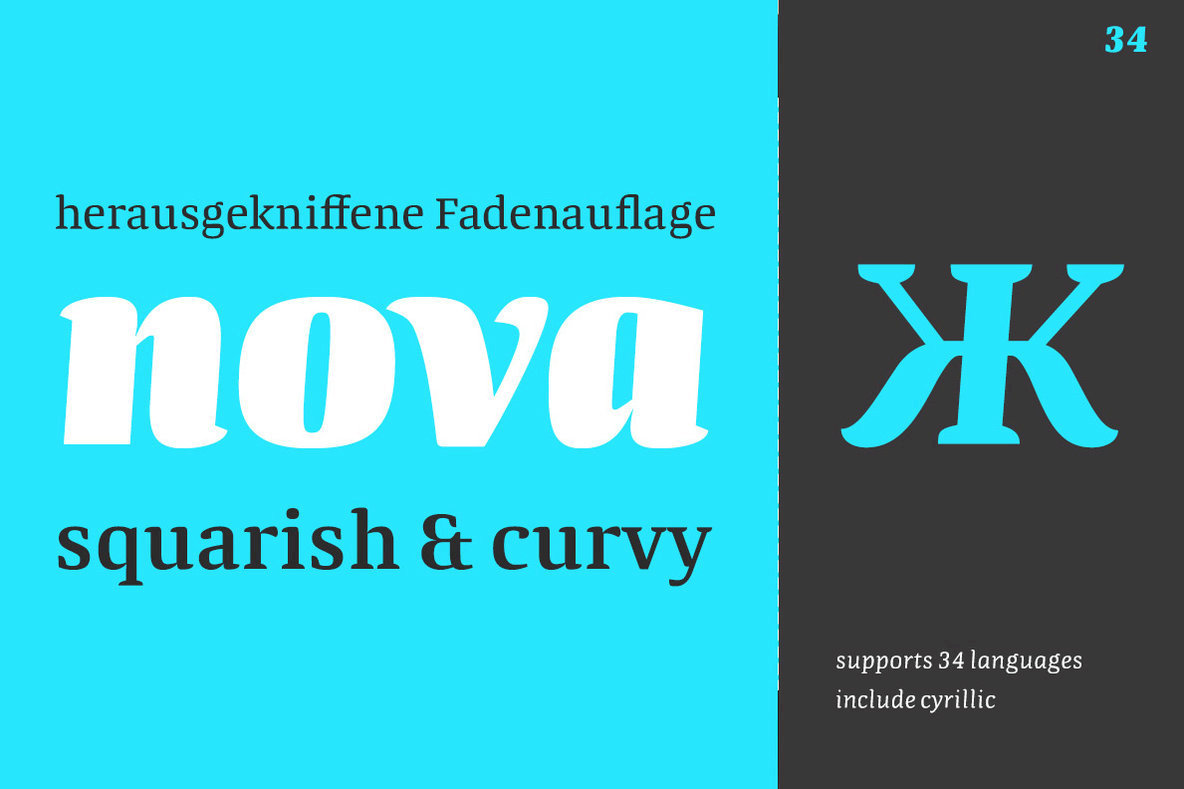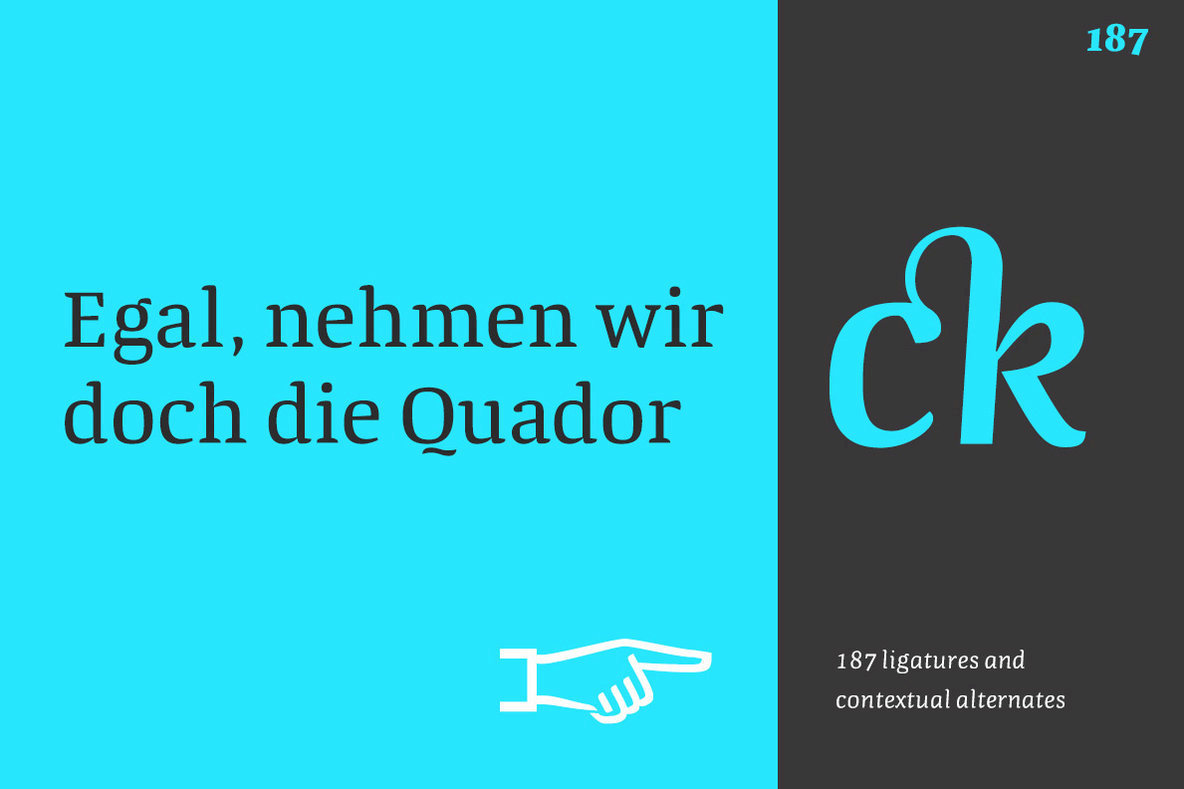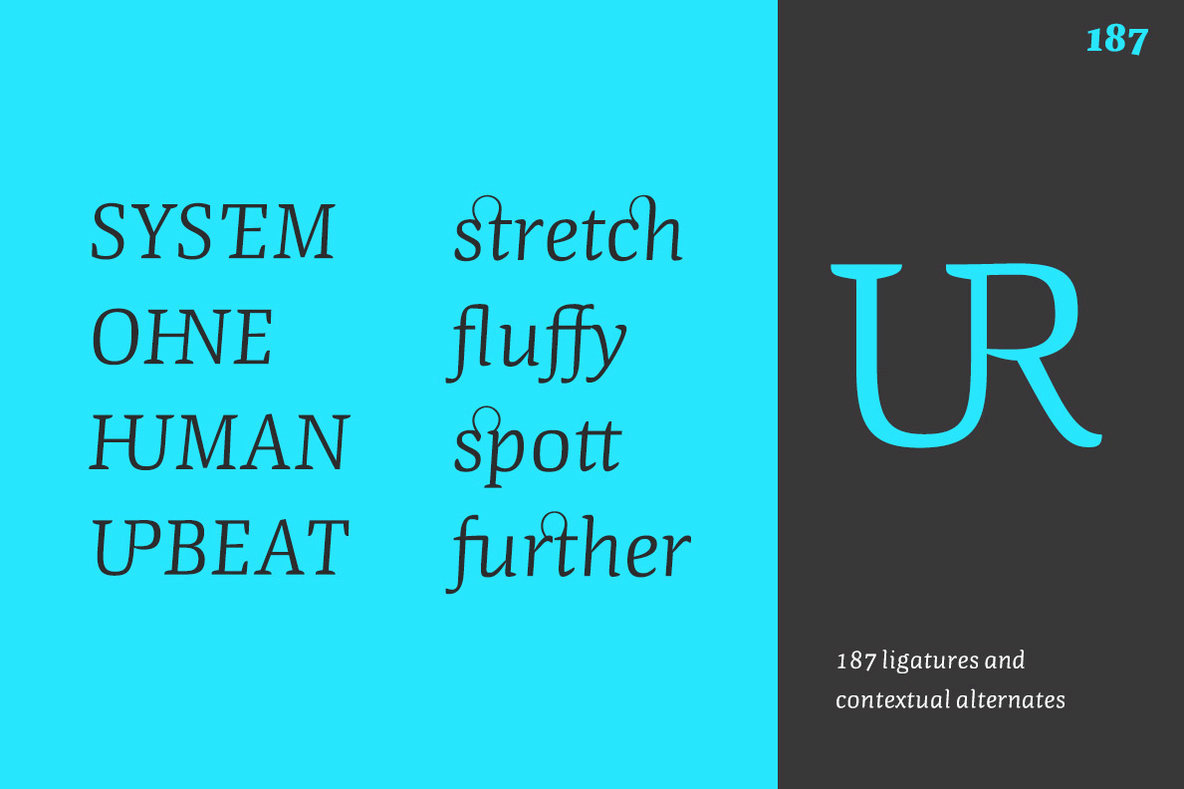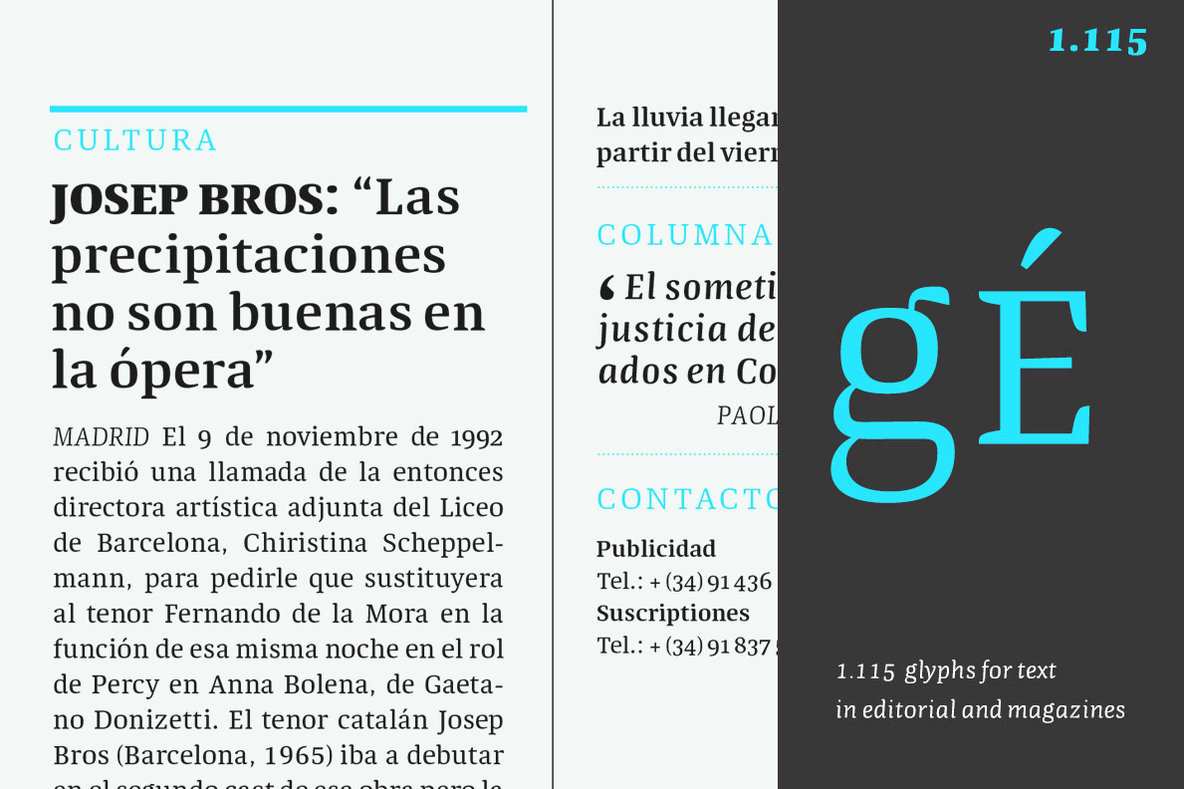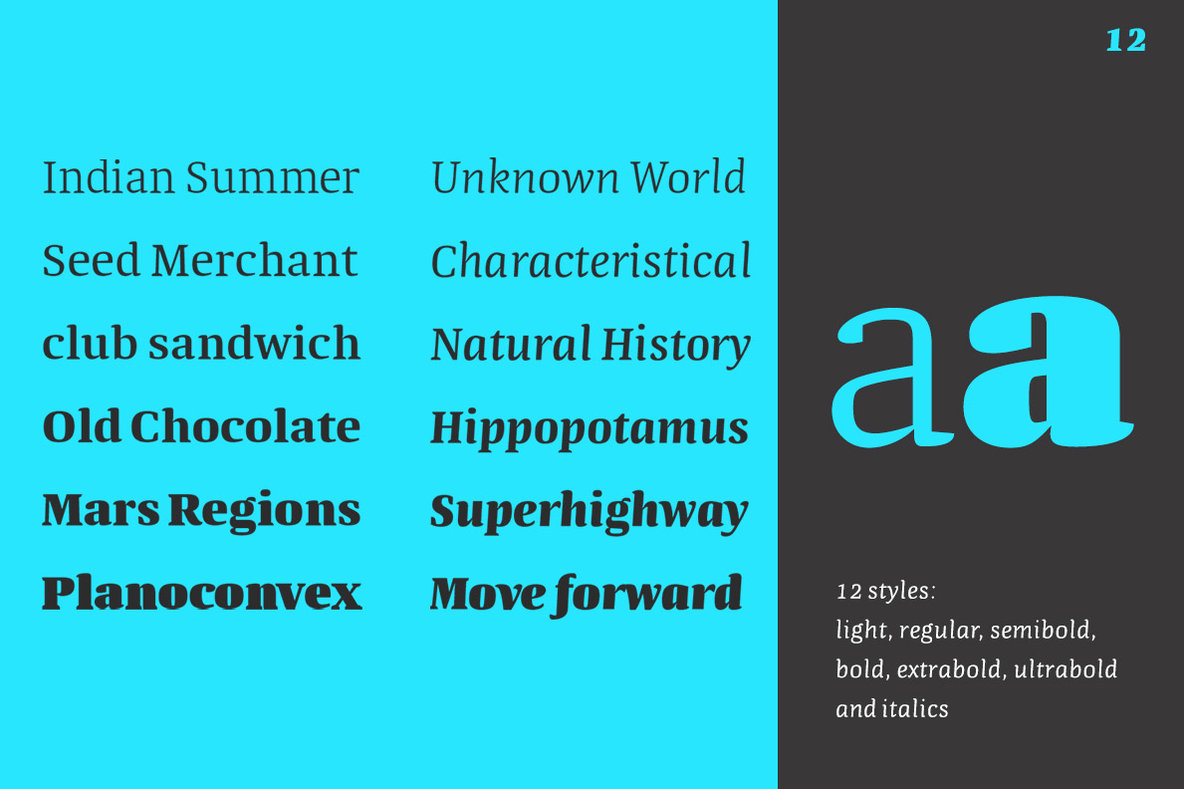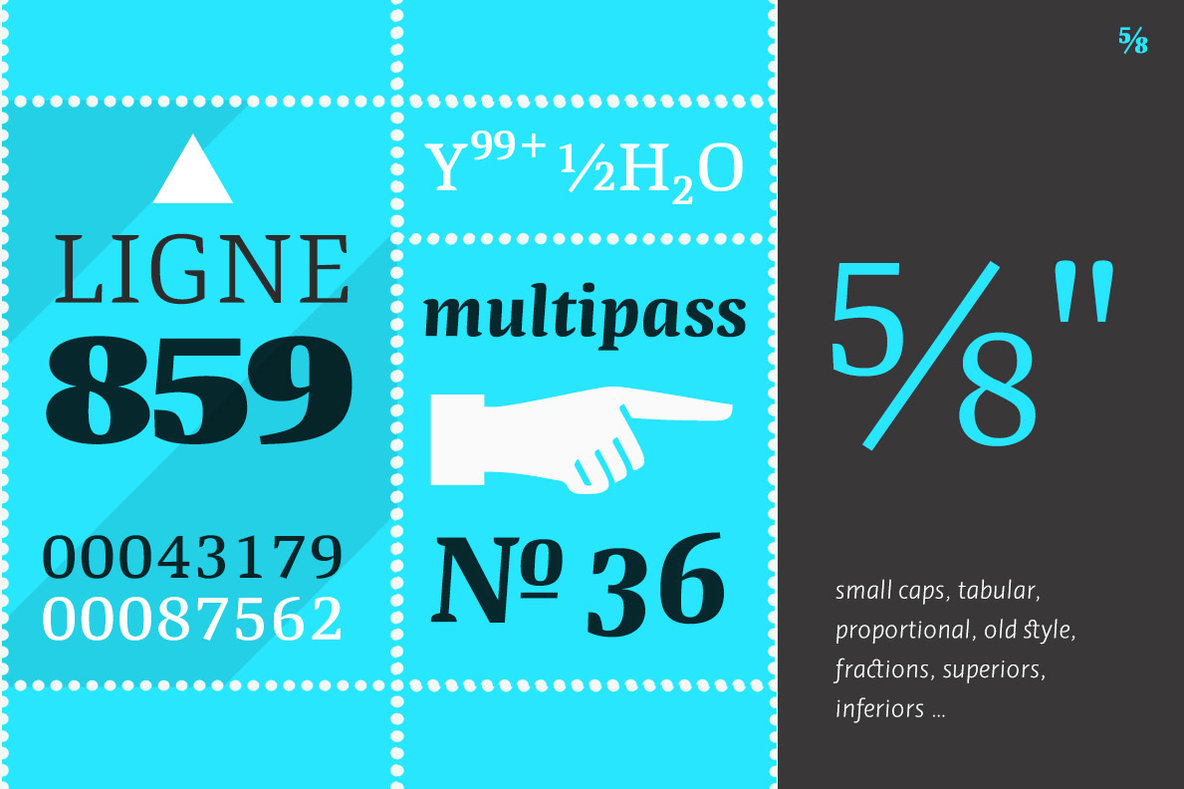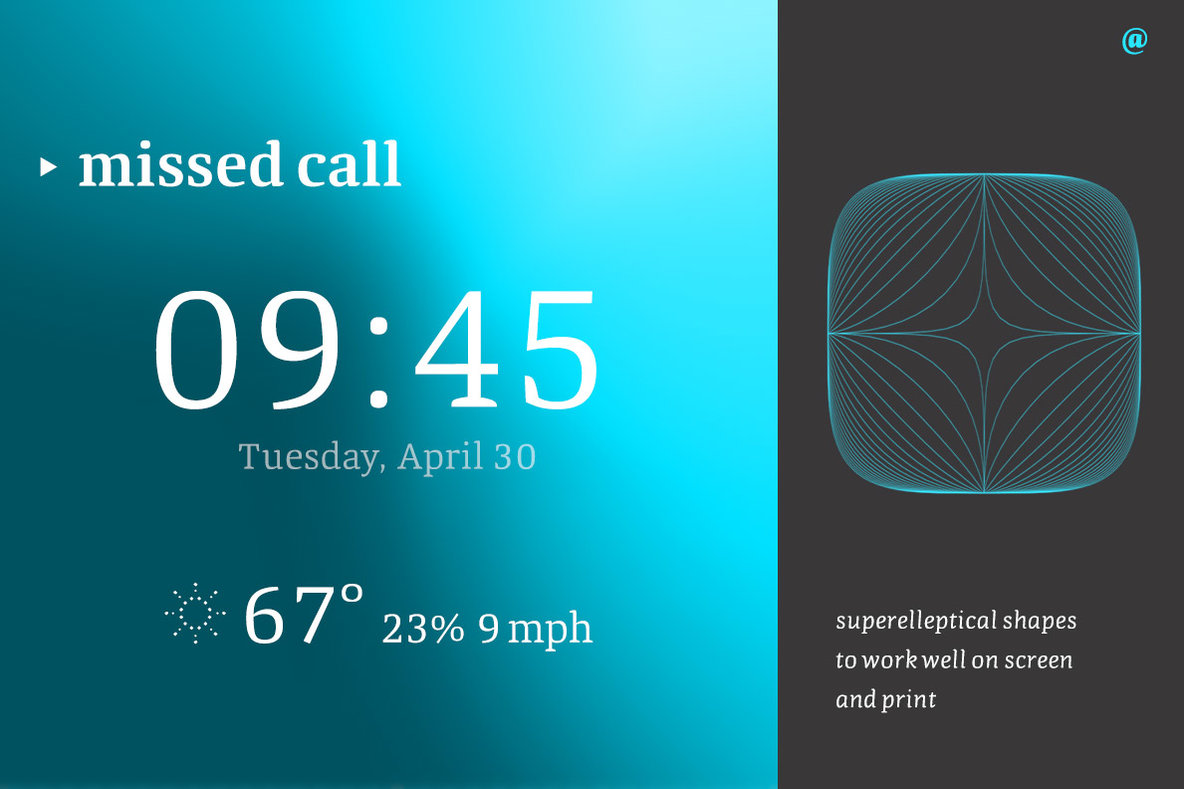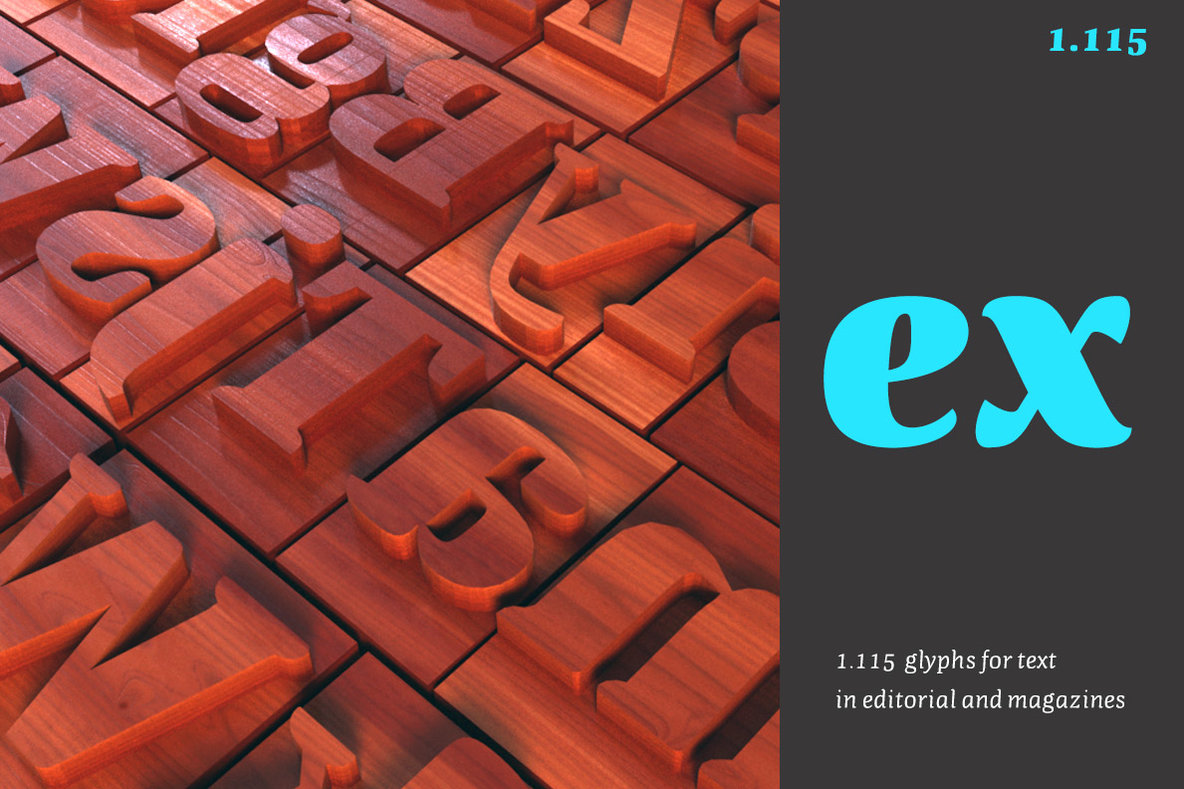
Quador Font
Quador is a squarish serif, especially designed for contemporary typography on print and screen. The superellipse-based forms and high x-height allow large and open letterforms, perfectly adapted to the pixel grid on screen. With rounded serifs Quador provides a soft and friendly atmosphere.
The font contains 6 weights from light to ultrabold plus true italics. 1.115 glyphs include 187 ligatures, small caps, tabular, old style, fractions …, and a wide range of flexibility for latin language and cyrillic support for every typographical needs. Quador is a contemporary serif typeface, special for logotypes, brands, magazines and editorial.
Arne Freytag was born in Hamburg in 1967. In 1995, he won a scholarship to study Graphic Design at the Kunstschule Alsterdamm art school in Hamburg. As a postgraduate in 1998, he attended the Atelier National de Recherche Typographique in Paris. He has published various articles in Tipografica, étapes and the...